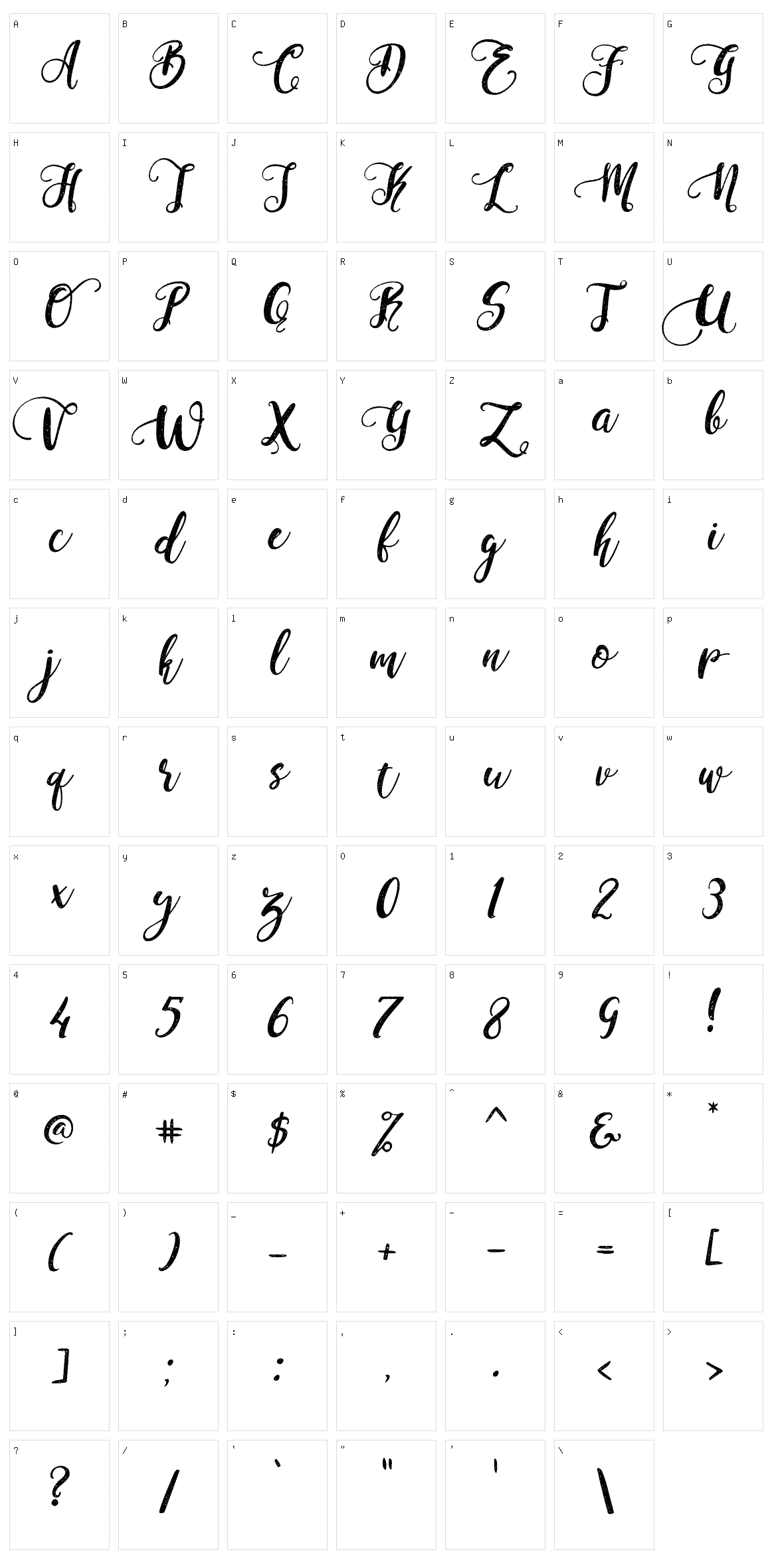
Bestters Supply is a an original type to recognize.
The font contains alternate characters upper and lower case, ligatures, discretionary ligatures, and multiple language support.
Bestters Supply works great in logotypes and slogans.
Use it as the go-to font for your business' titles.